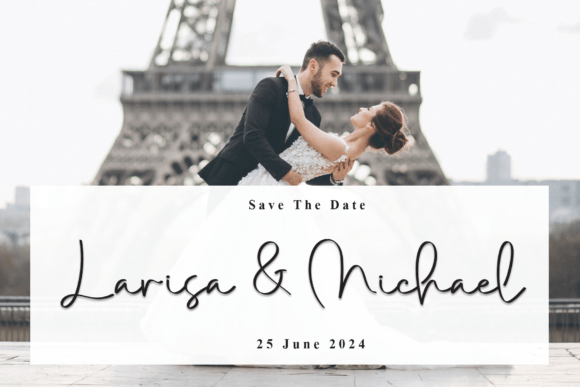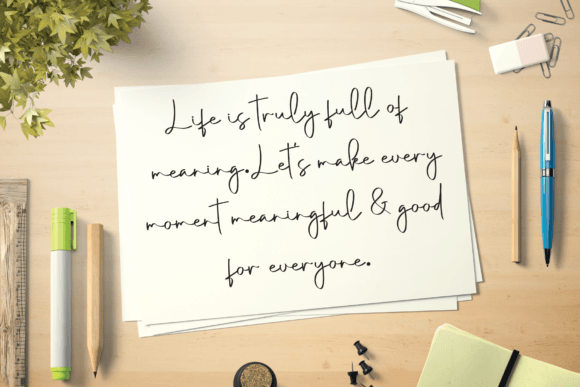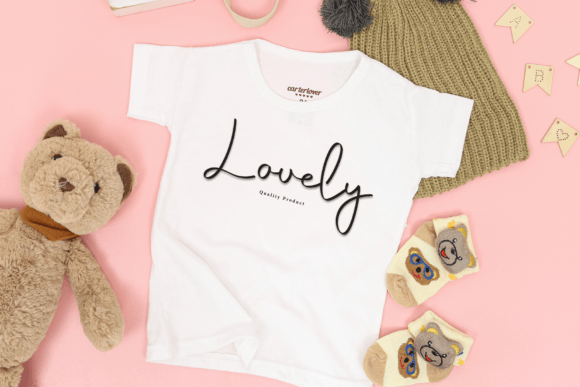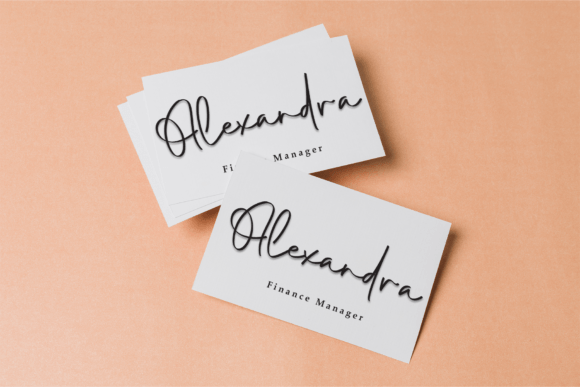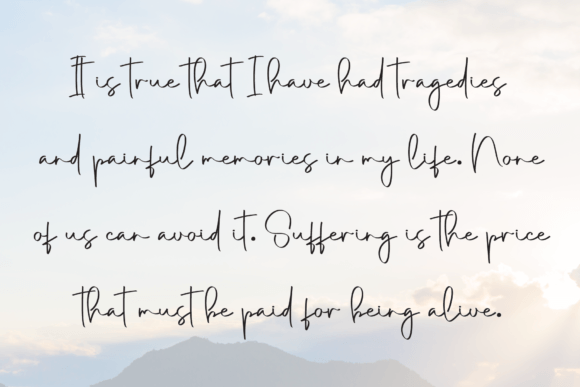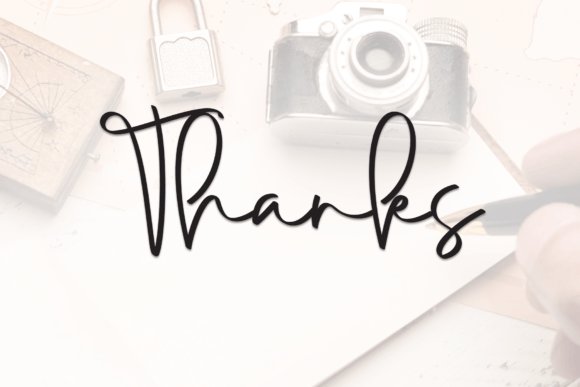
Introducing Autography Font: A Timeless Handwritten Style for Your Creative Projects
Are you a designer, crafty enthusiast, or simply someone who appreciates beautiful typography? Look no further than Autography Font, a lovely and timeless handwritten font that’s perfect for creating eye-catching logos, branding, and quotes. With its unique and beautiful touch, Autography Font is sure to bring your designs to life!
What Makes Autography Font Special?
Autography Font stands out from the crowd due to its distinctive handwritten style, which exudes warmth and personality. Every letter has been carefully crafted to possess a unique touch, making it an excellent choice for designers and crafters seeking to add a personal flair to their work. Whether you’re creating a logo, branding materials, or social media graphics, Autography Font is sure to make a lasting impression.
Perfect for a Variety of Creative Projects
Autography Font’s versatility makes it an ideal choice for a wide range of creative projects, including:
- Logos: Create a memorable and impactful logo that reflects your brand’s personality with Autography Font.
- Branding: Establish a consistent visual identity across all your branding materials, from business cards to packaging, using Autography Font.
- Quotes: Add a touch of elegance and sophistication to your inspirational quotes, making them perfect for social media, posters, or wall art.
- Social Media Graphics: Elevate your social media presence with eye-catching graphics, featuring Autography Font’s beautiful handwritten style.
Why Choose Autography Font?
With so many fonts available, why should you choose Autography Font for your creative projects? Here are just a few compelling reasons:
- Unique and Beautiful: Autography Font’s distinctive style sets it apart from more generic fonts, ensuring your designs stand out.
- Timeless Appeal: Unlike trendy fonts that may quickly go out of style, Autography Font’s classic handwritten style will remain relevant for years to come.
- Ease of Use: Autography Font is easy to read and works well in a variety of contexts, making it a practical choice for designers and crafters.
Tips for Using Autography Font Effectively
To get the most out of Autography Font, consider the following tips:
- Pair with Other Fonts: Combine Autography Font with complementary fonts to create visual interest and add depth to your designs.
- Experiment with Colors: Try out different color schemes to find the perfect match for your brand or design.
- Pay Attention to Spacing: Ensure your text is easy to read by adjusting the spacing between letters and lines.